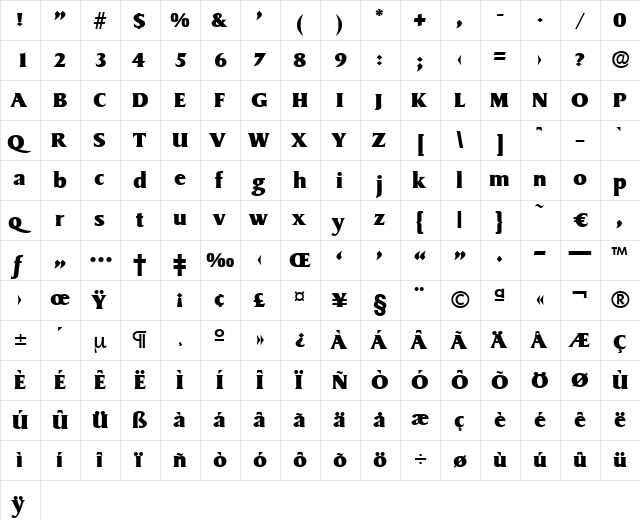
Sydney-Heavy Regular
Design Context for Sydney-Heavy Typeface
Sydney-Heavy takes a measured approach to typography — its balanced proportions and neutral character make it a reliable workhorse for both digital and print work.